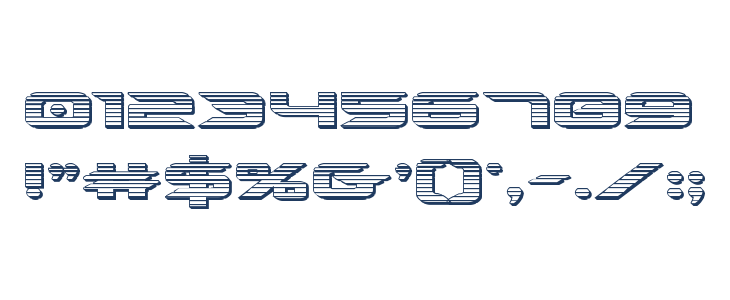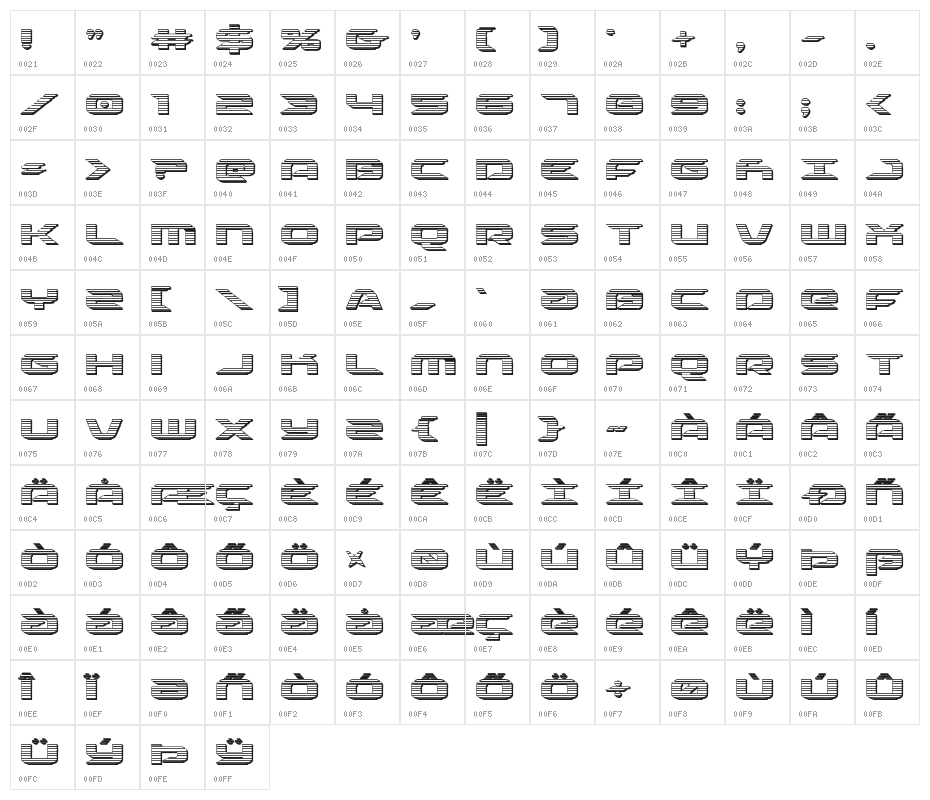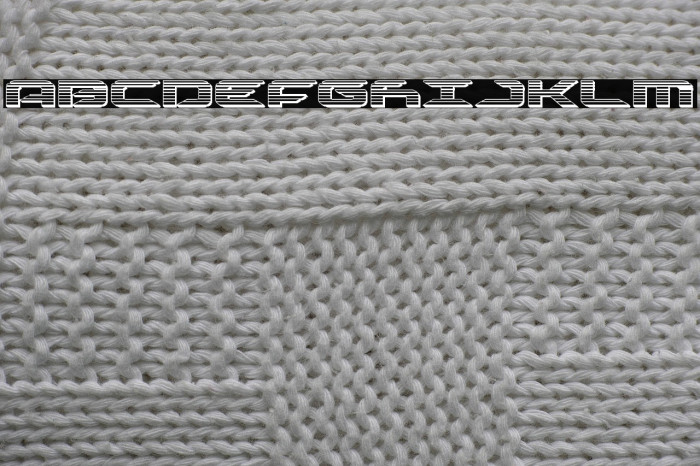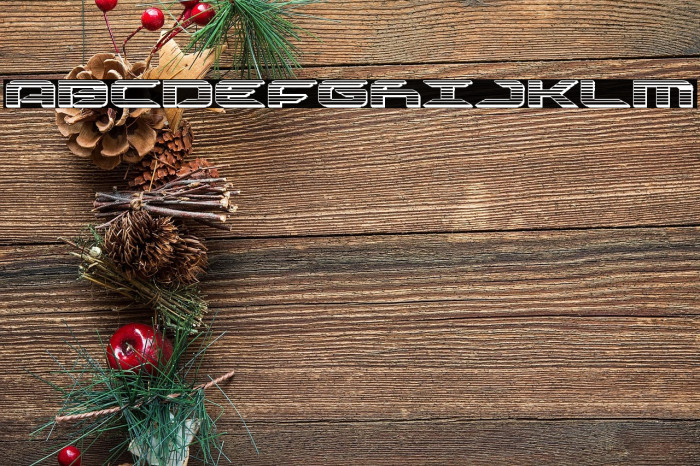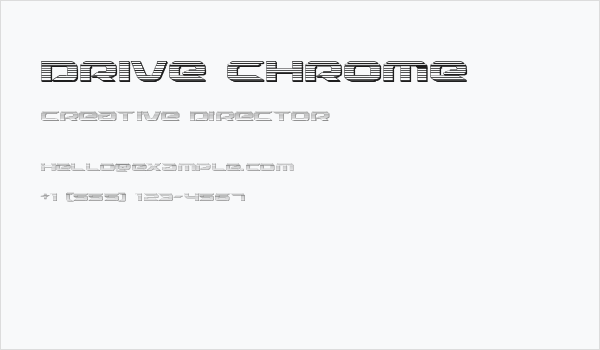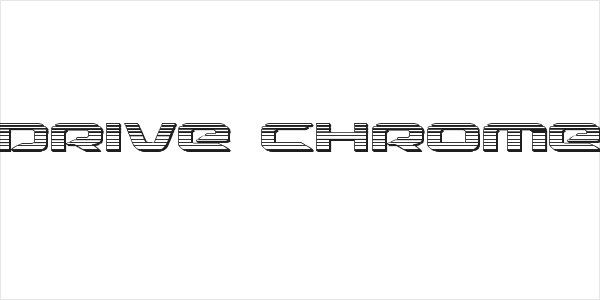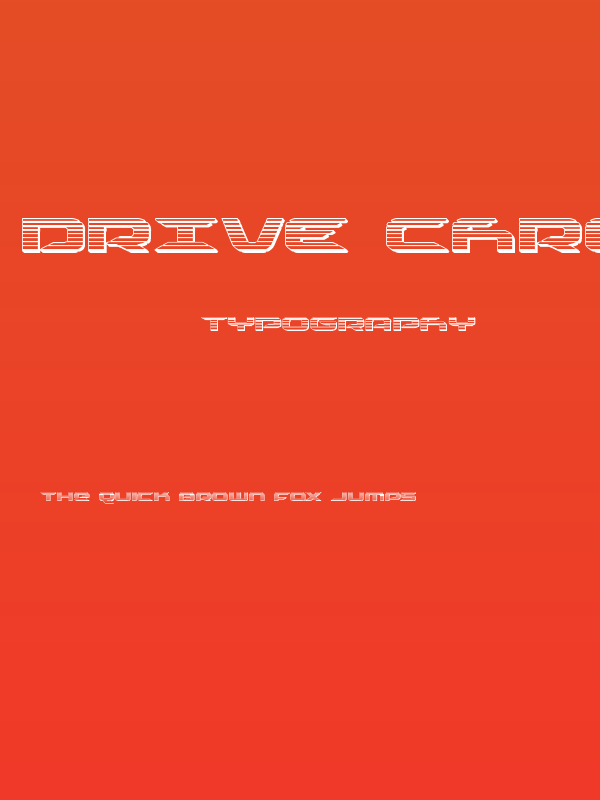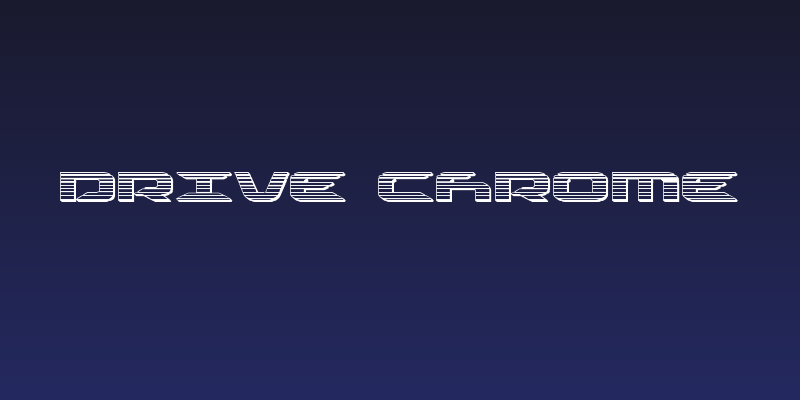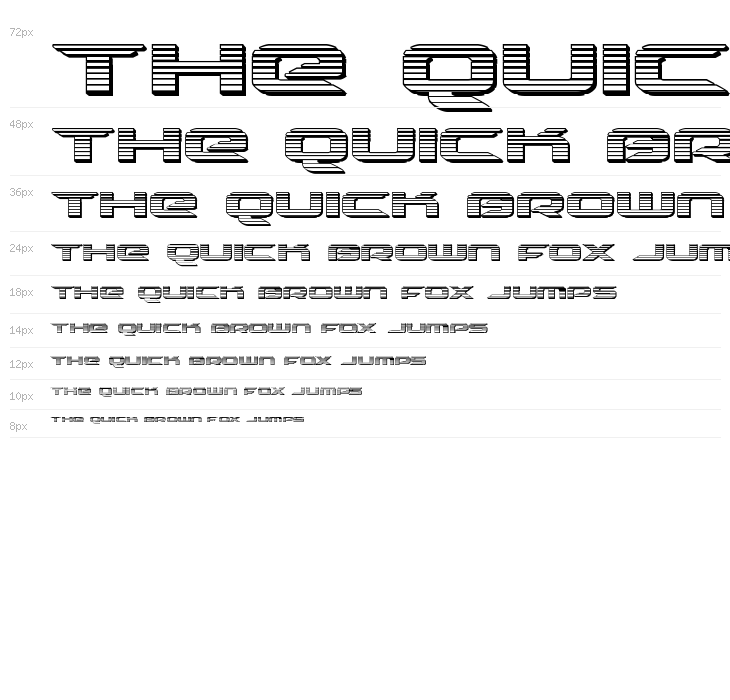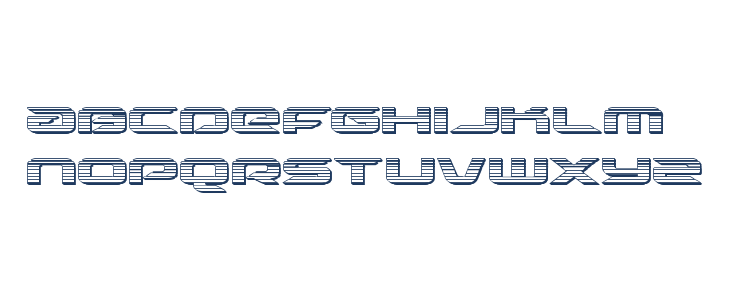
Drive Chrome Font
Drive Chrome Description
This font features a futuristic and geometric design, characterized by its bold, angular shapes and horizontal lines that create a sense of depth and dimension. The letters are constructed with parallel lines that give a three-dimensional effect, making it stand out as a display typeface. The uppercase and lowercase letters maintain a consistent style, with a unique approach to traditional letterforms. The numbers and special characters follow the same design principles, ensuring uniformity across all glyphs. This font is ideal for projects that require a modern and tech-inspired aesthetic.